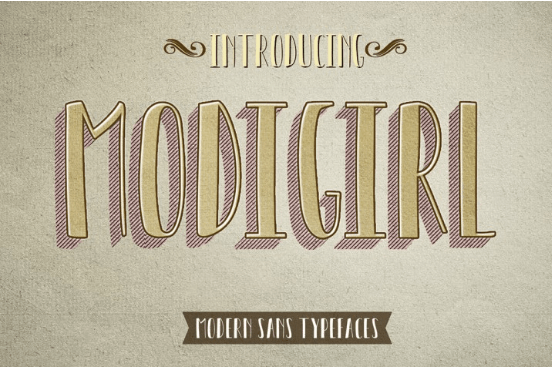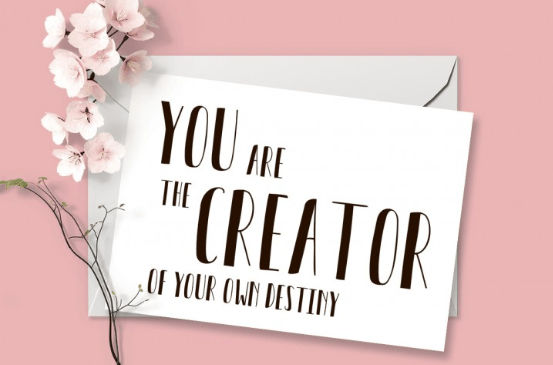
Font Frenzy: Modigirl Sans
Modigirl Sans is a useful, sturdy font with a handmade feel to it. It’s easy to use and it will give your work an illustrative handmade feel.Files included :